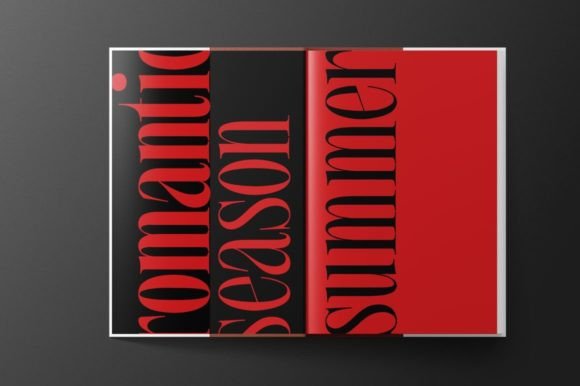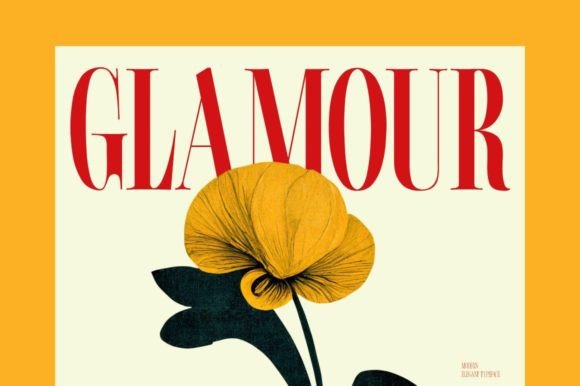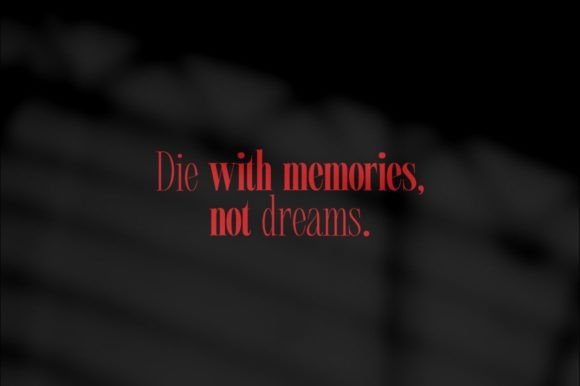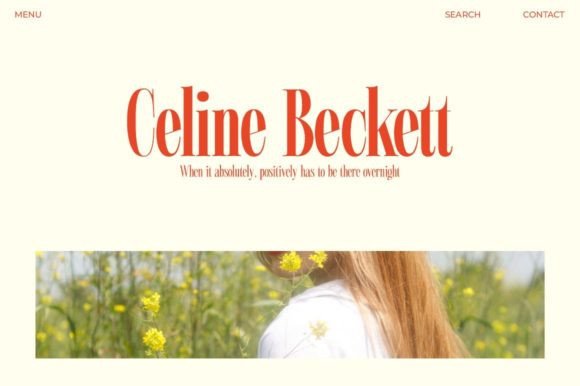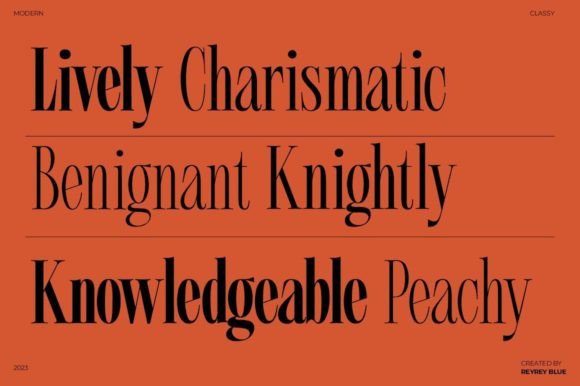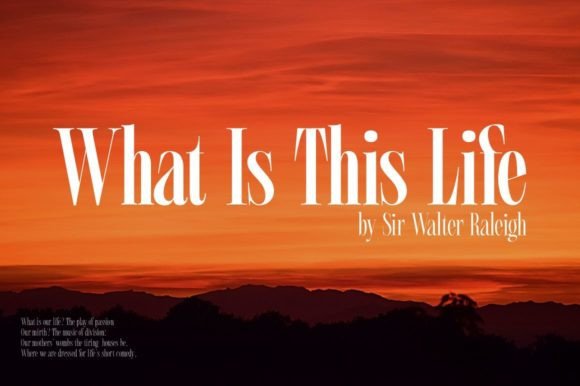
Introduction to Lunette Font
Introducing, Lunette a strong and classy font with an elegant touch.
It boasts 3 stunning styles, full beautiful upper and lower case letters, number and punctuation marks Lunette is perfectly suitable for displays for headings, logos, branding, magazines, product packaging, invitations and so much more.